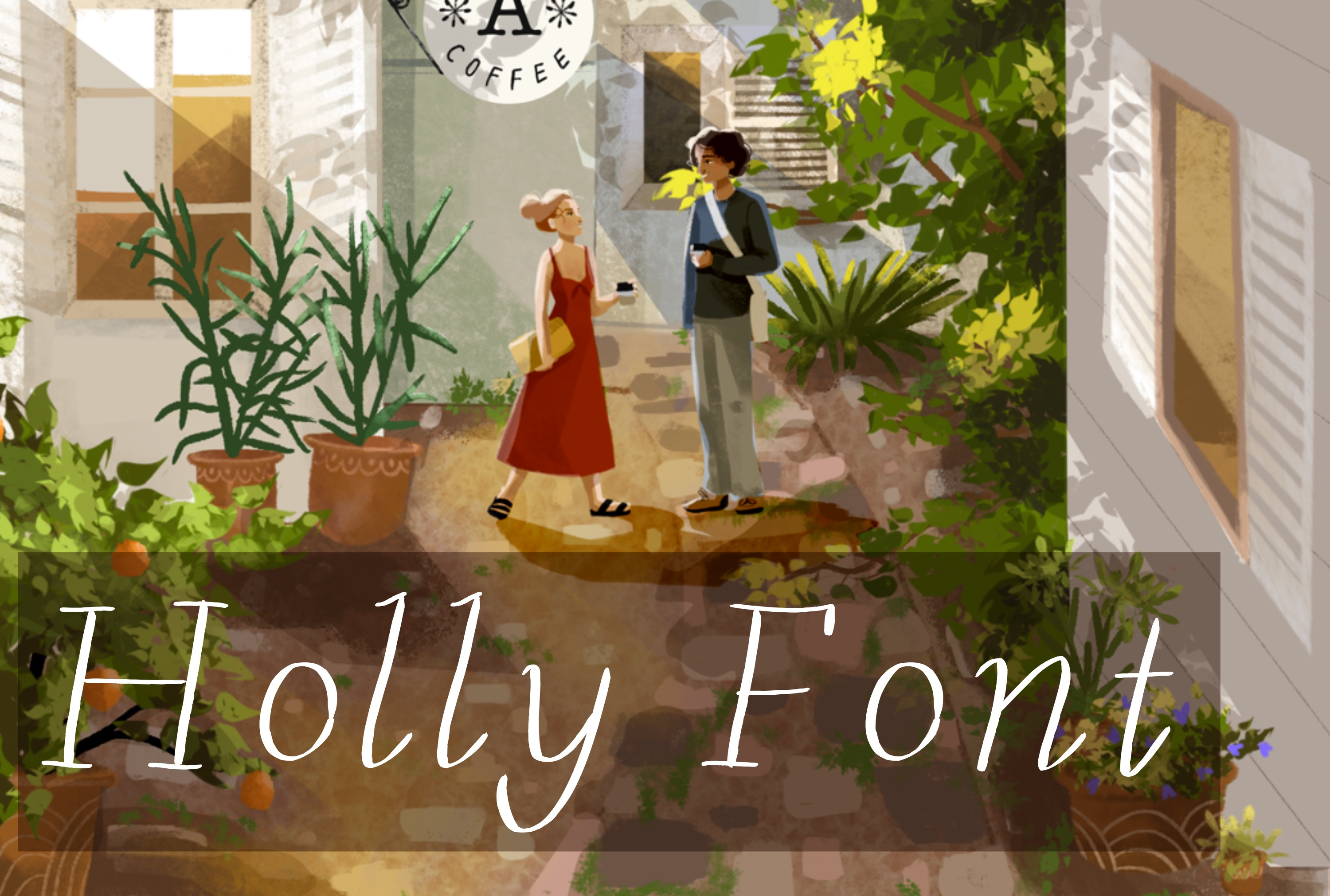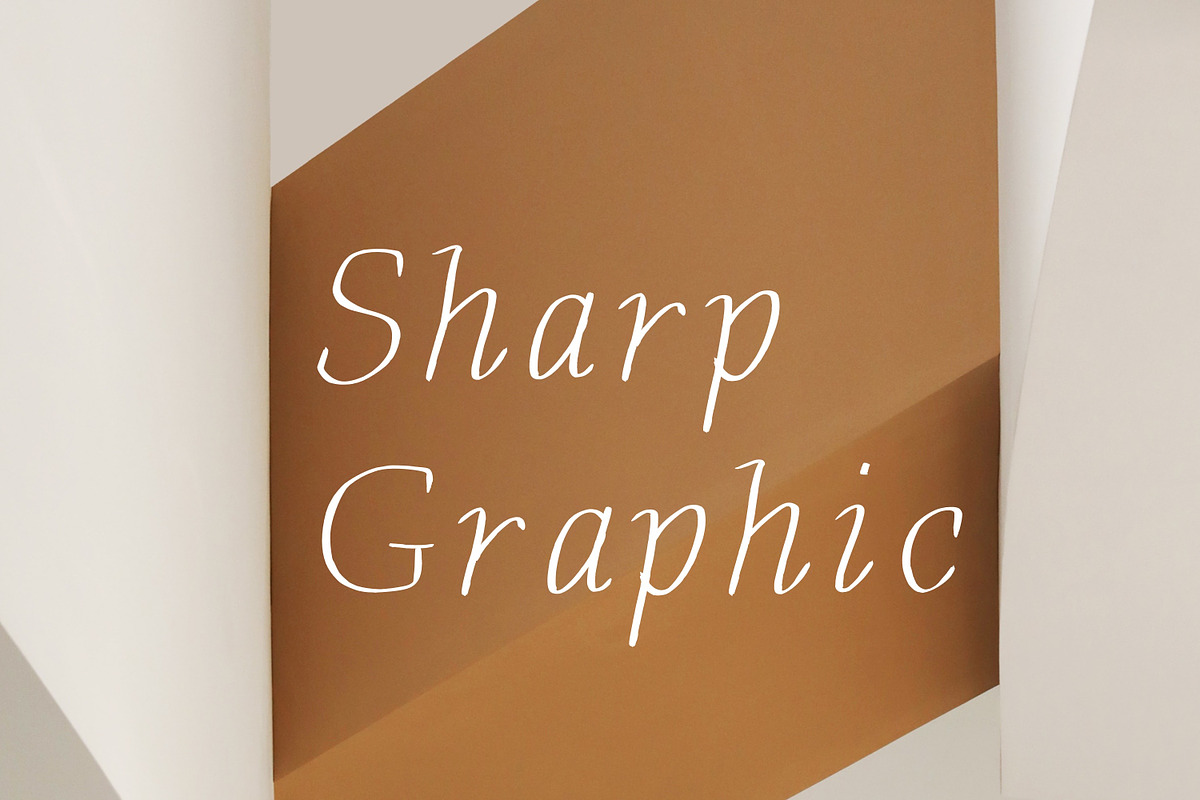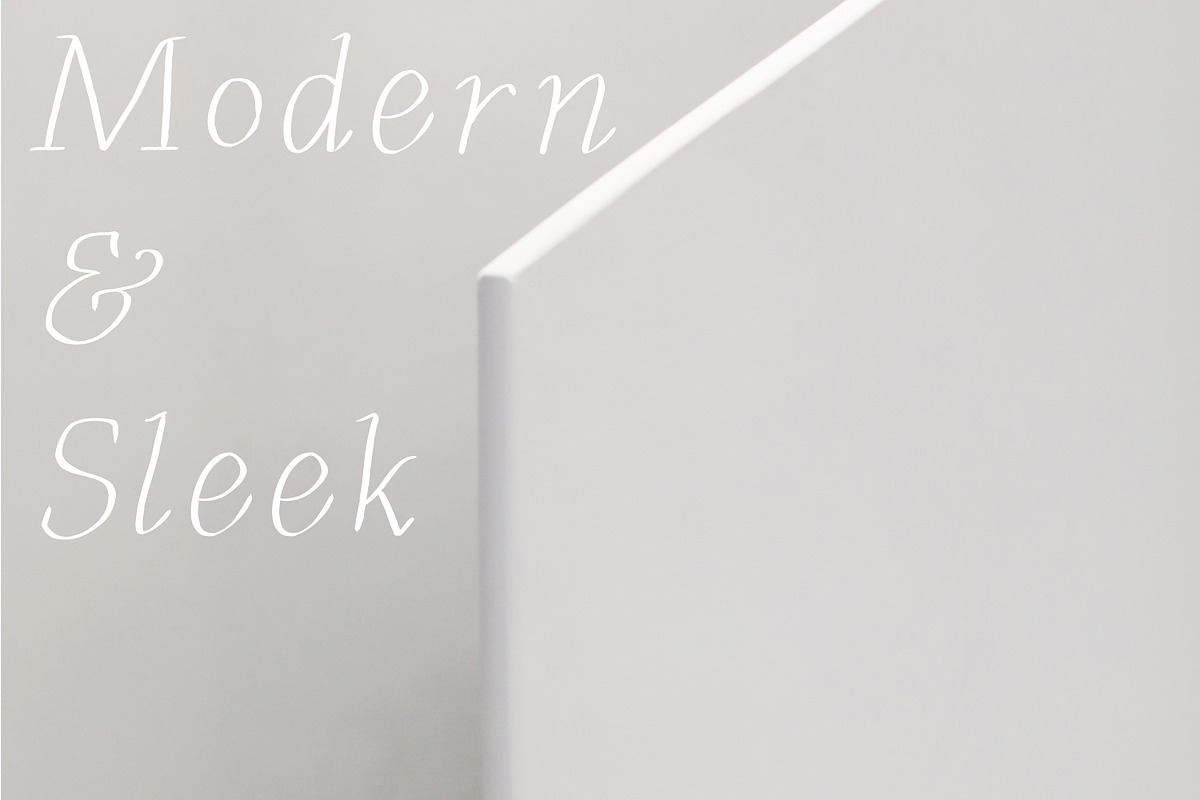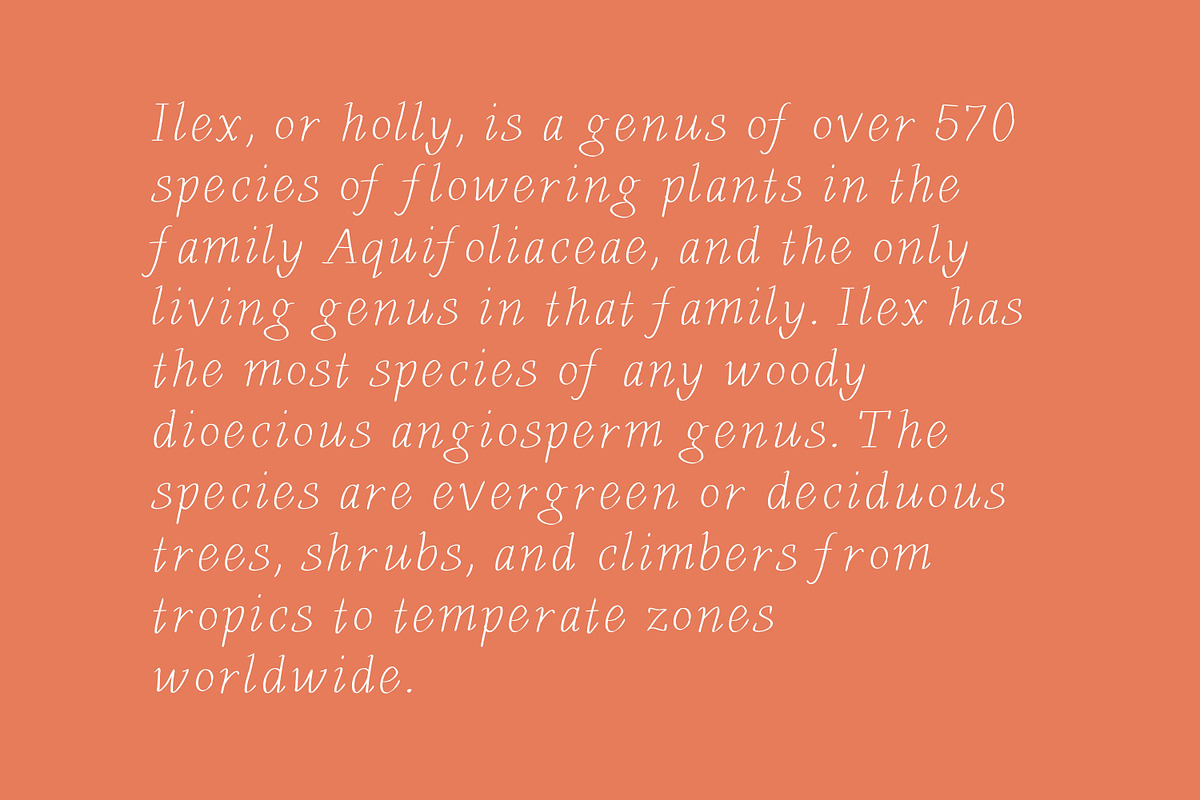
Holly storybook simple font
Simple, sleek and minimal font, great for bringing a bit of personality to any design, logo, book, blog or website! (or literally anything else).